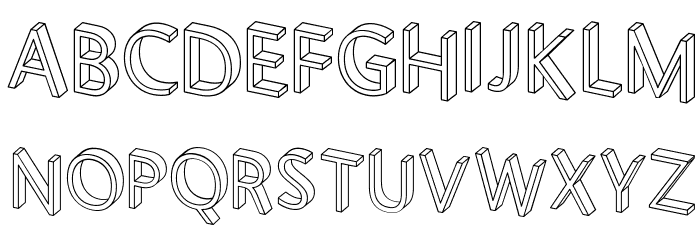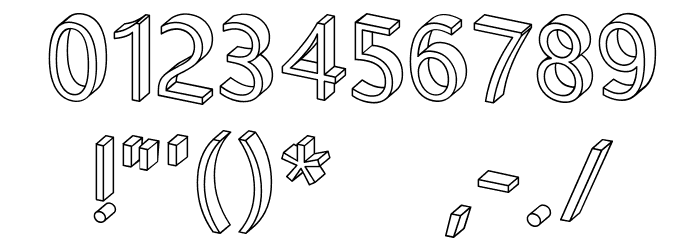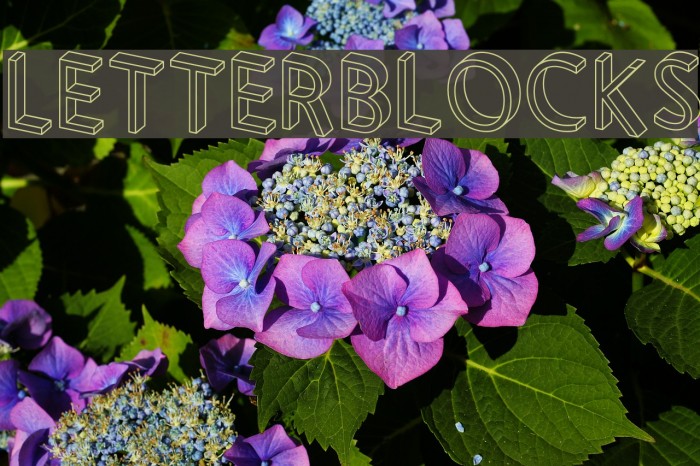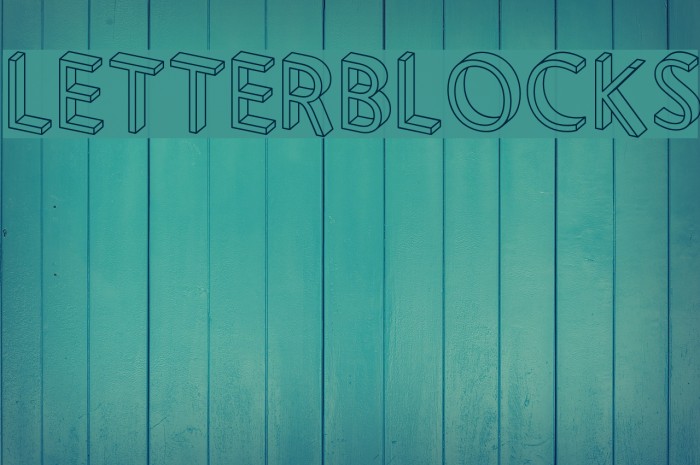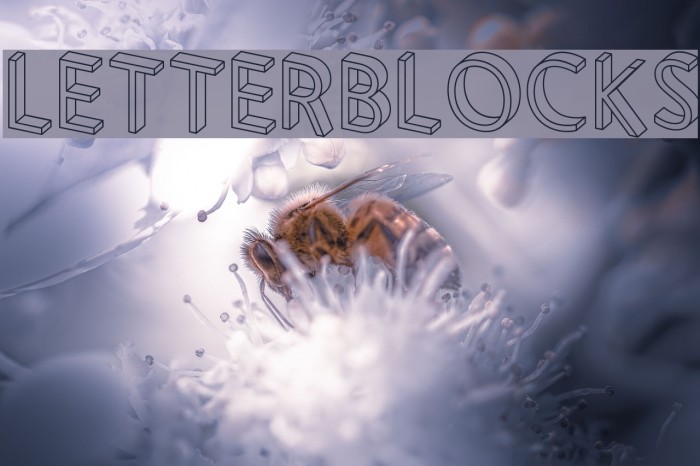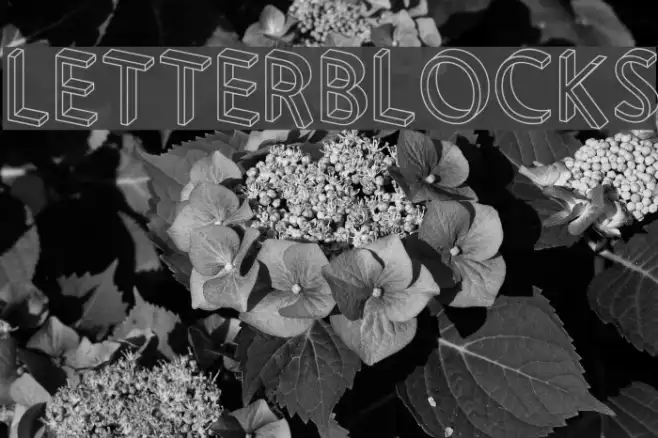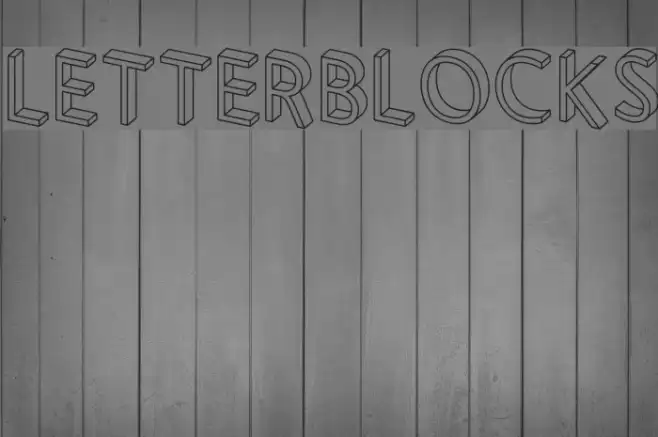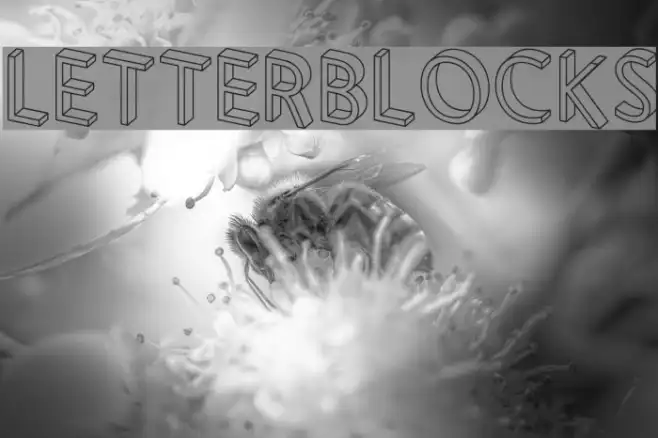
Letterblocks Font
This font features a bold, three-dimensional block style that gives each character a sense of depth and solidity. The letters are outlined with a consistent stroke width, creating a clean and structured appearance. The geometric design is both modern and playful, making it suitable for a variety of creative applications. The uppercase and lowercase letters maintain a uniform style, while the numbers and special characters complement the overall aesthetic. This font's unique 3D effect makes it stand out, perfect for eye-catching designs.
A bold, 3D block-style font with a modern and playful geometric design.